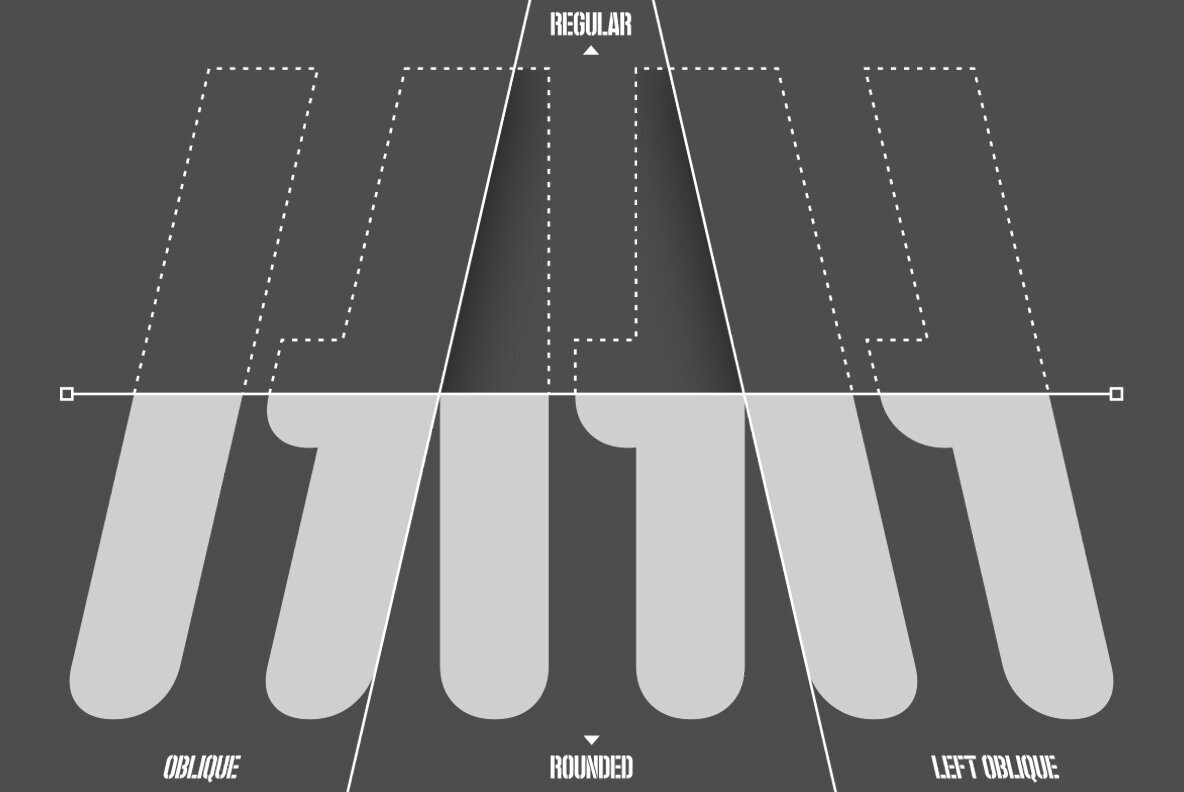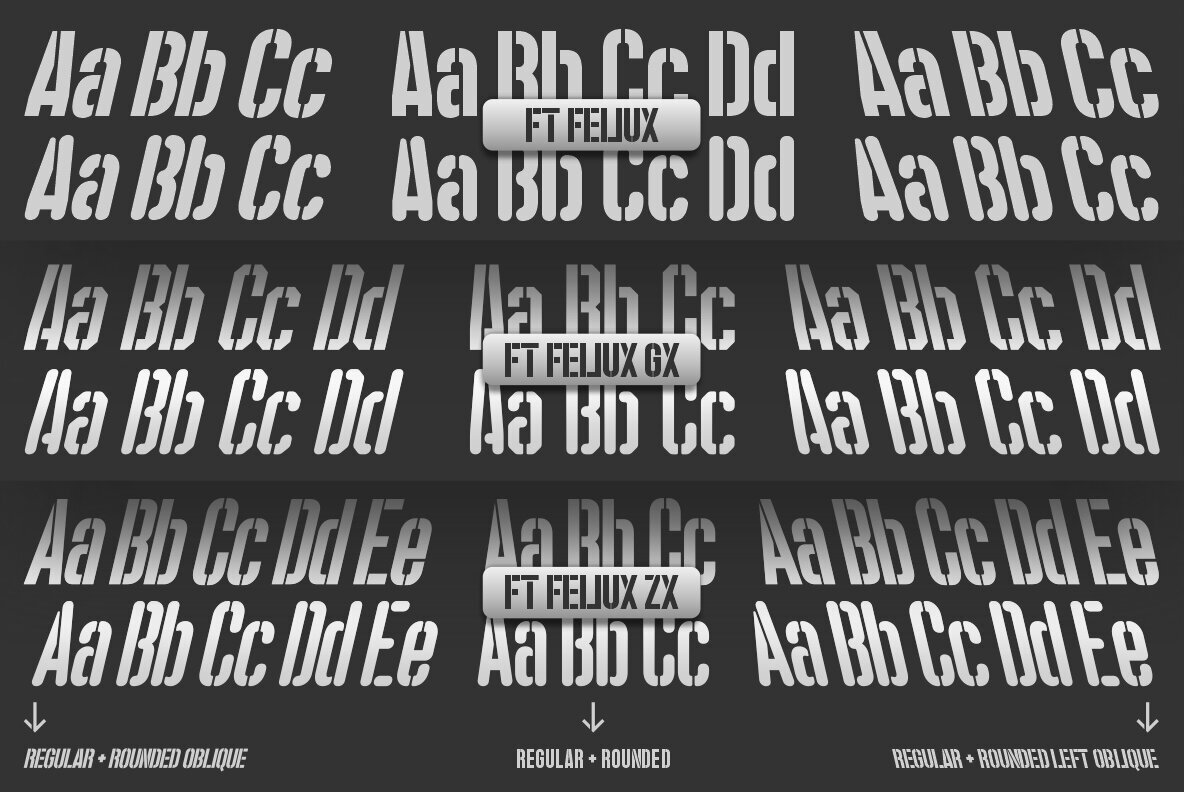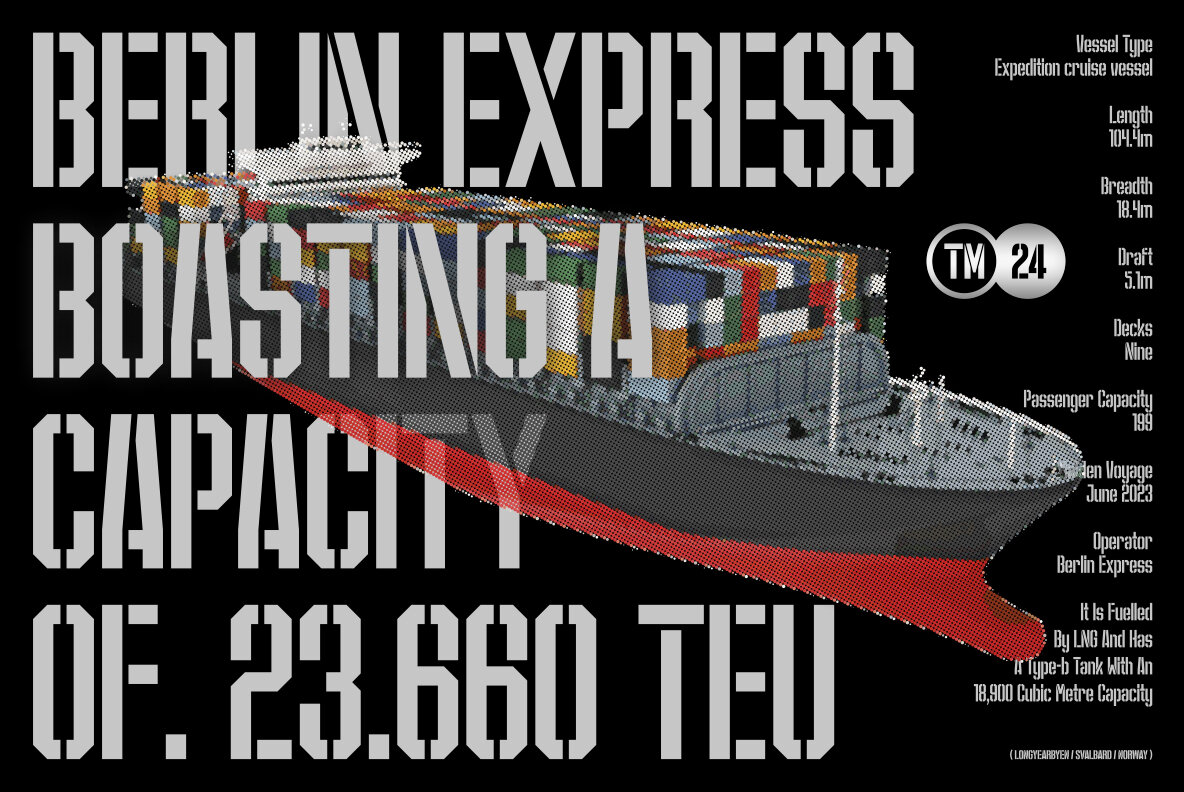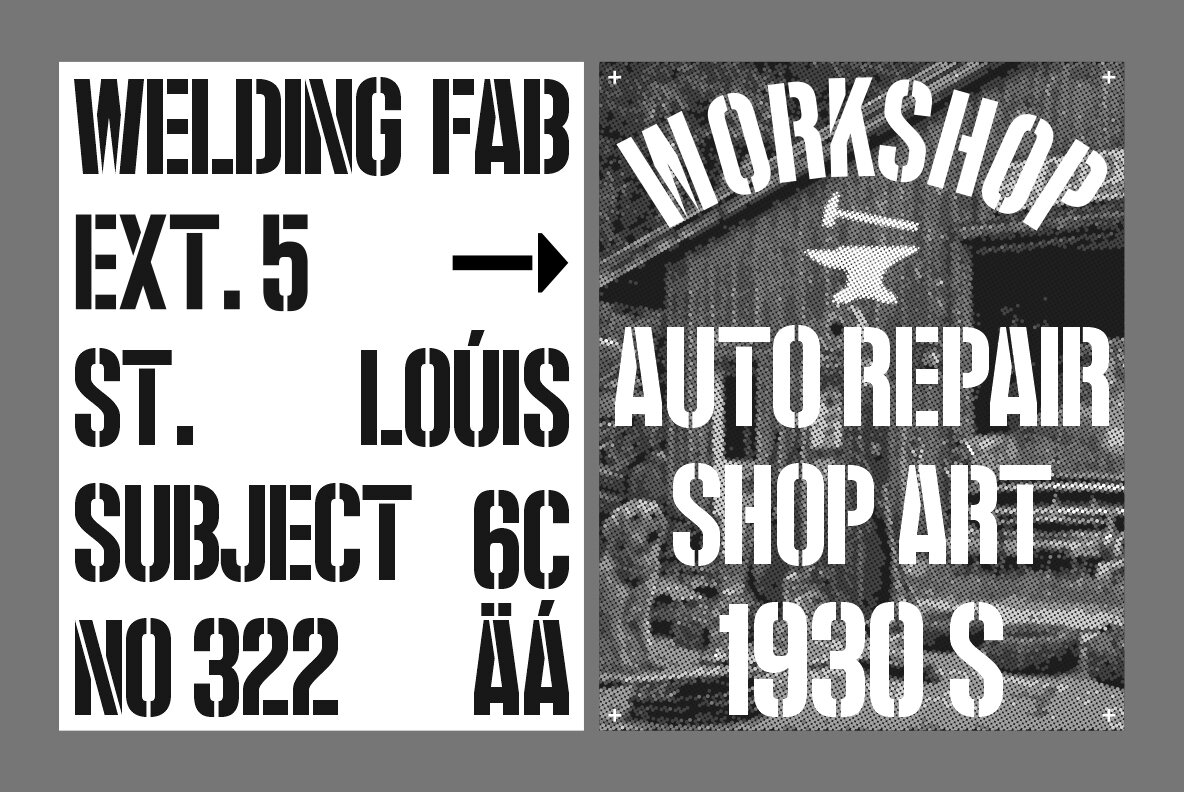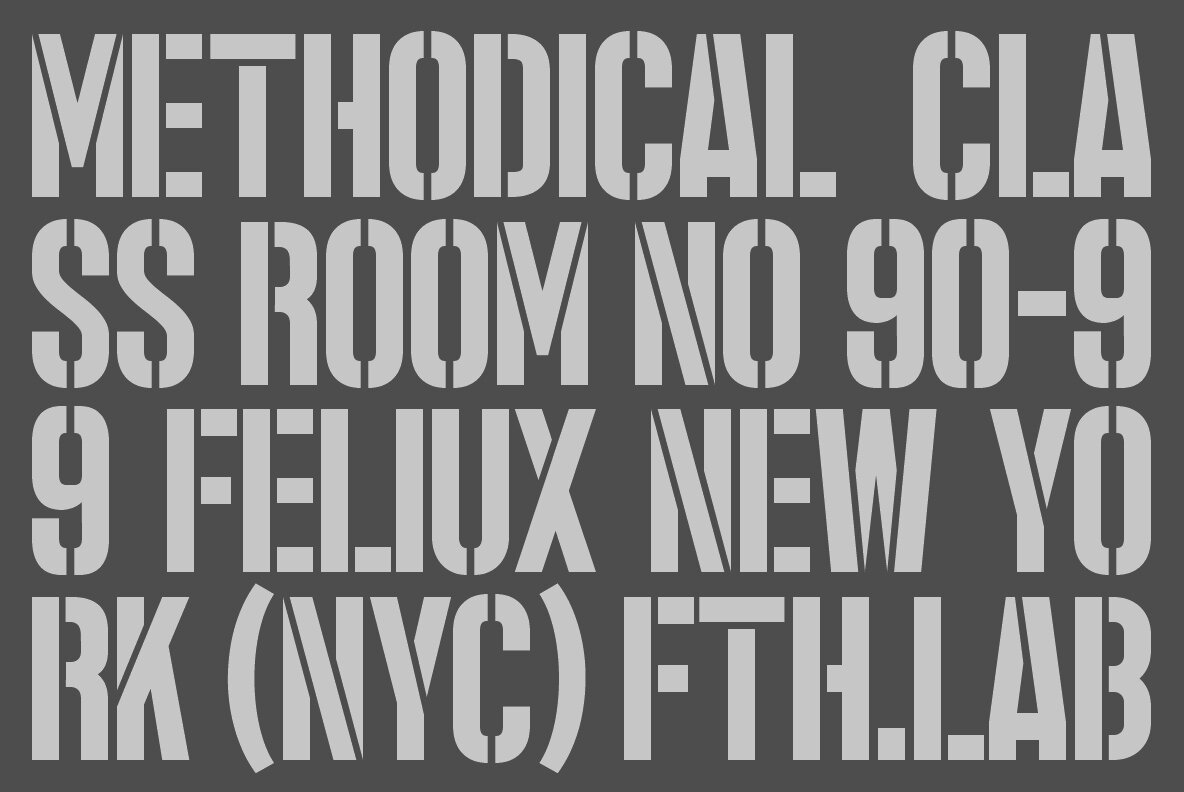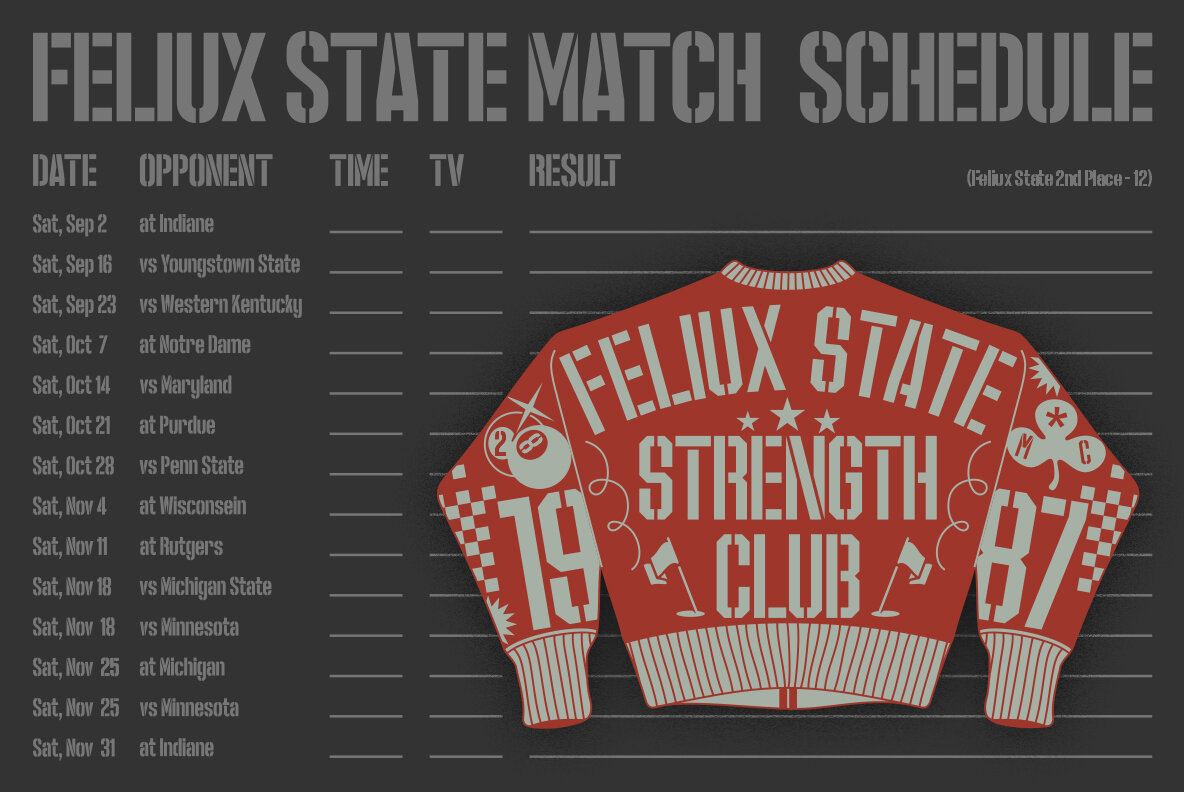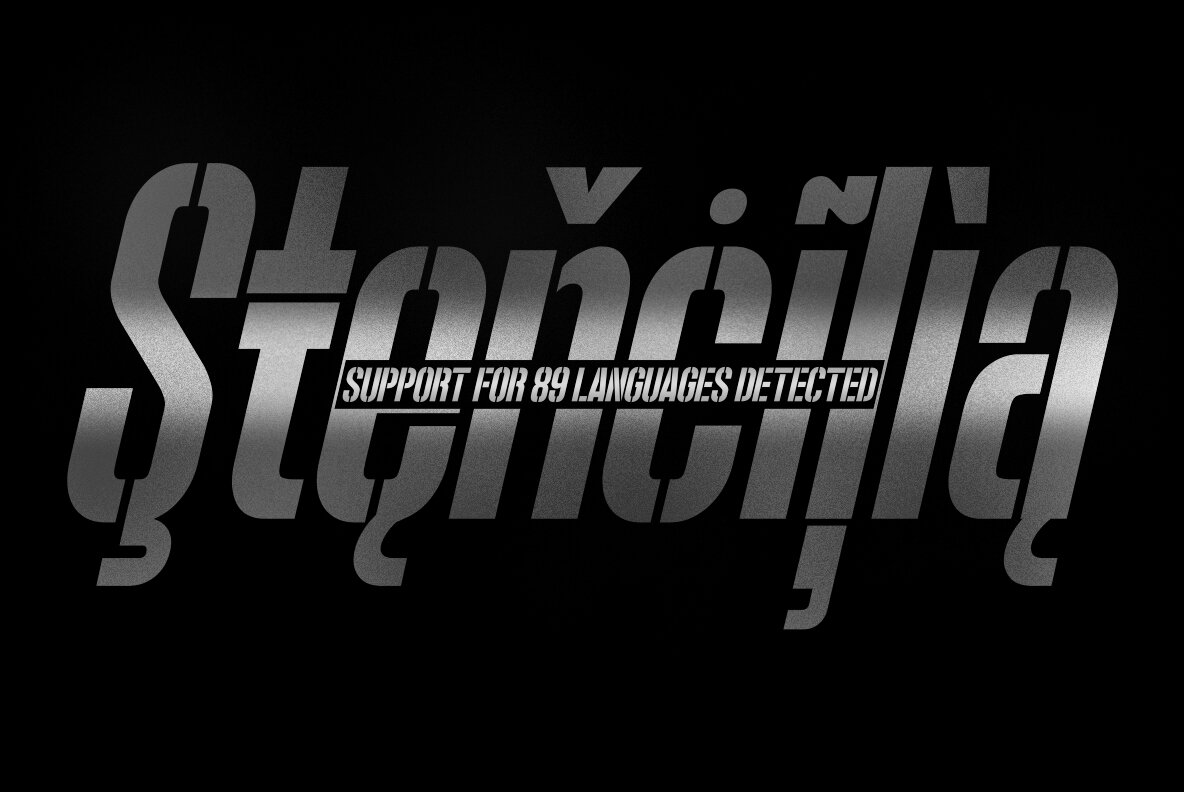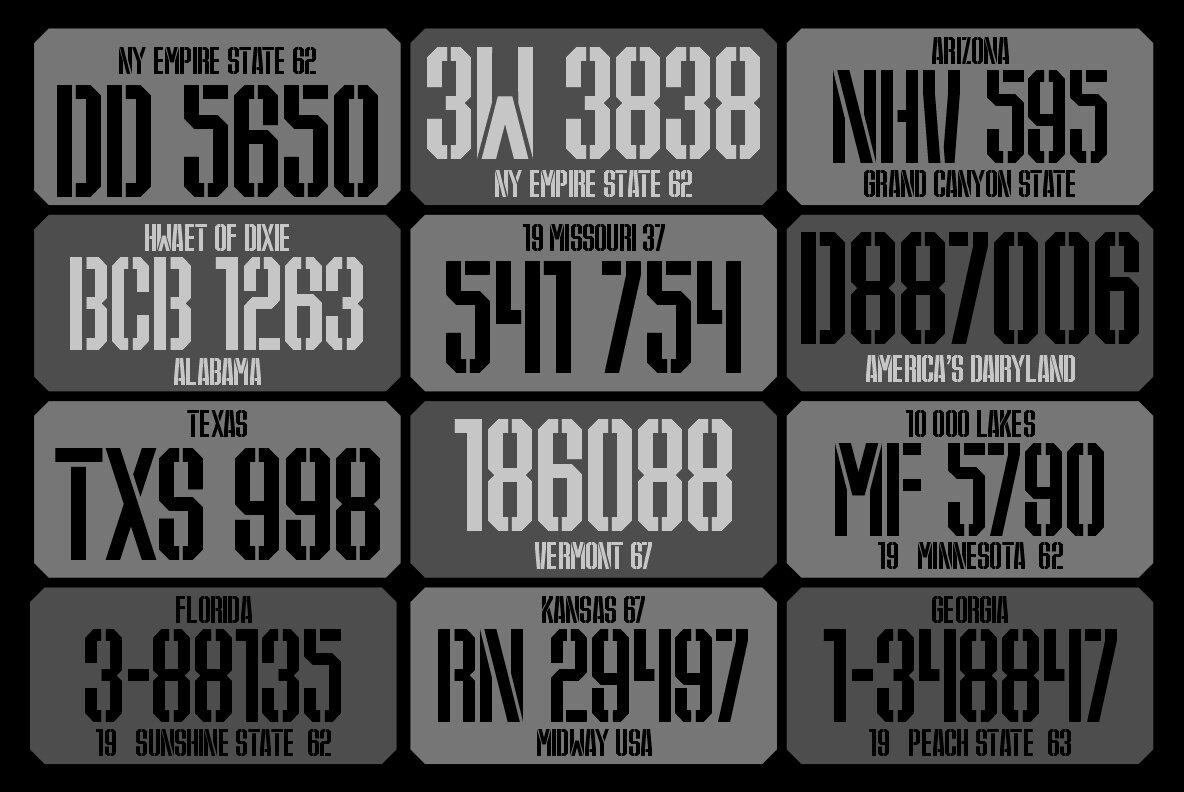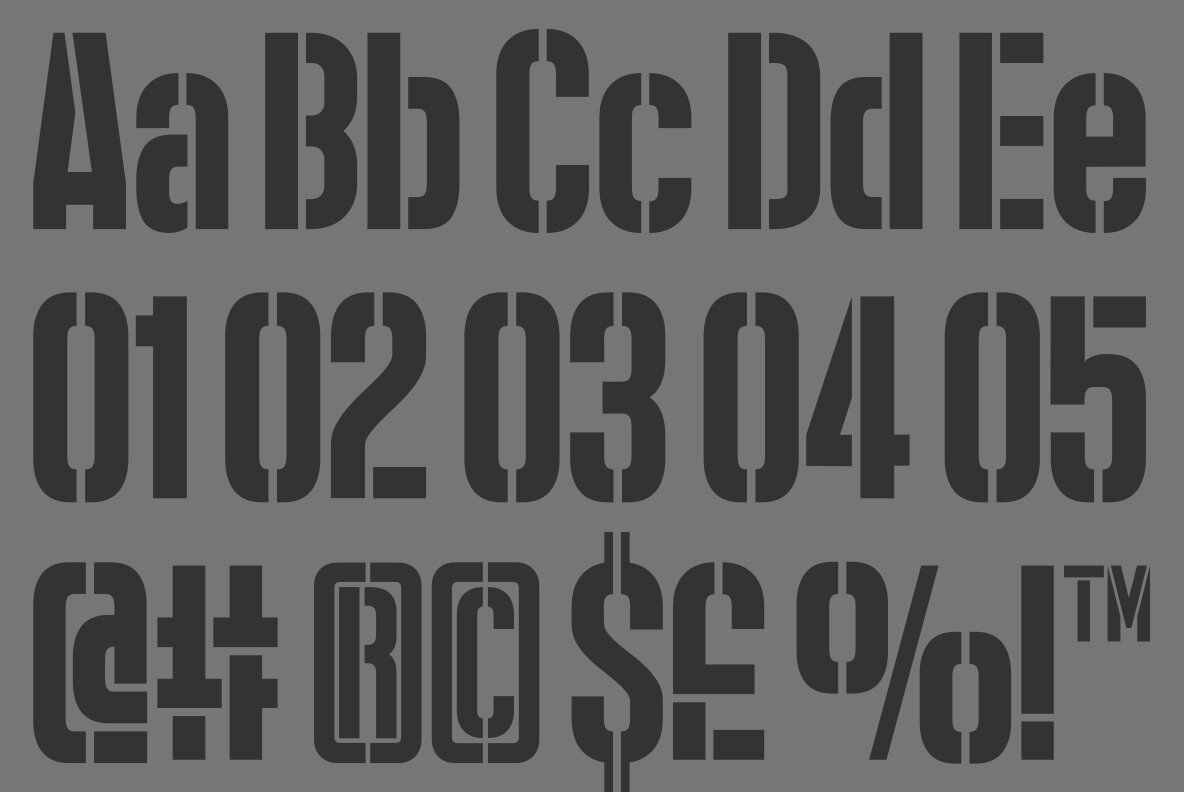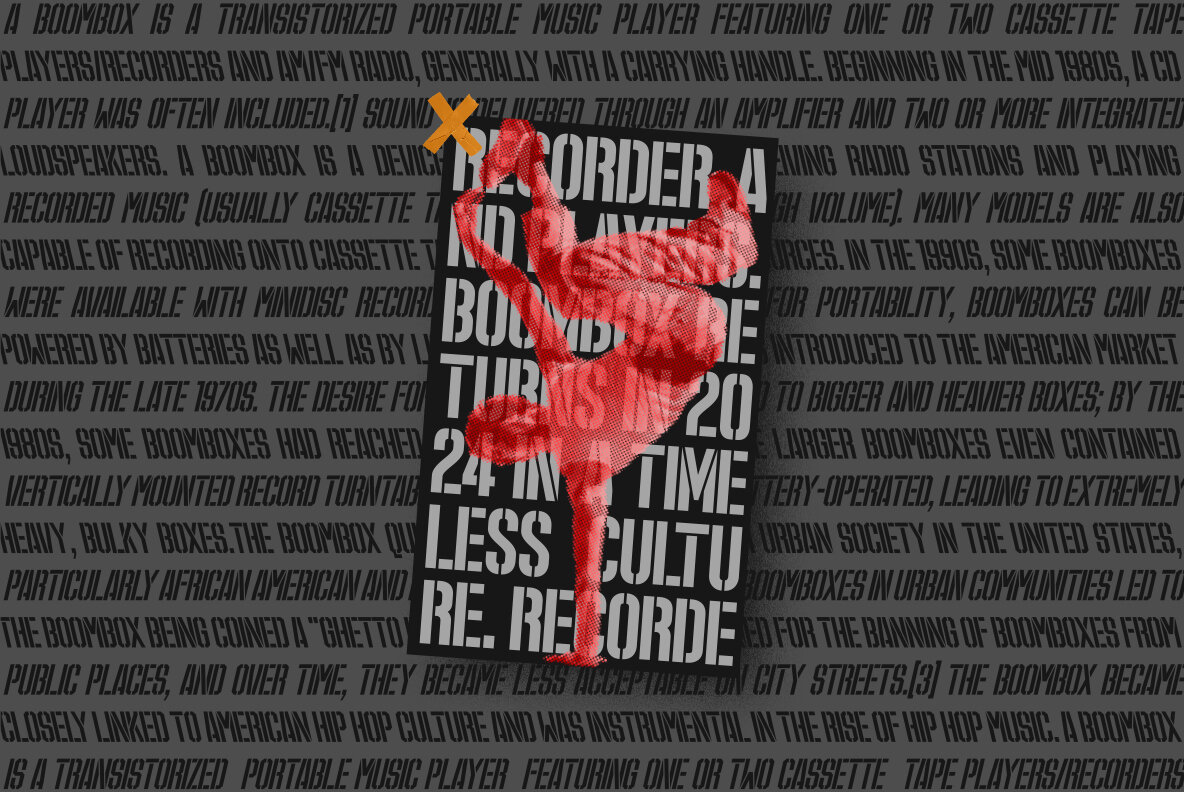
Ft Feliux Font
FT FELIUX is a stencil typeface with a strong and elegant look. Inspired by the design styles that are currently popular, and this is the answer to all your needs for every idea that you will express in this modern era, with a thick and sturdy style in each letter as if this font has a soul in it. With support for 3 types of fonts and 18 styles, FT FELIUX is a stencil font with the most complete support to meet your needs. Its weight is superior in posters, social media, headlines, large format prints - and anywhere else you want to get noticed.